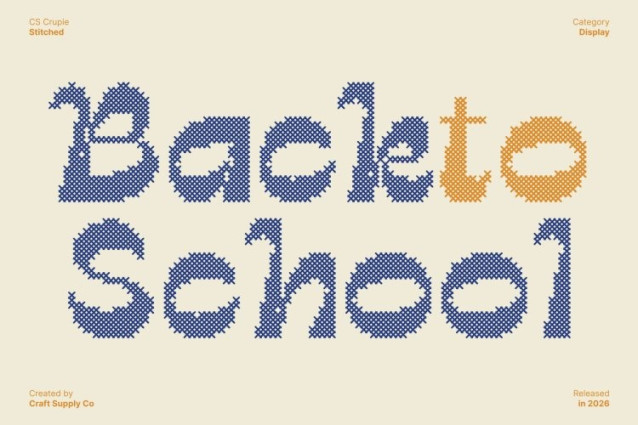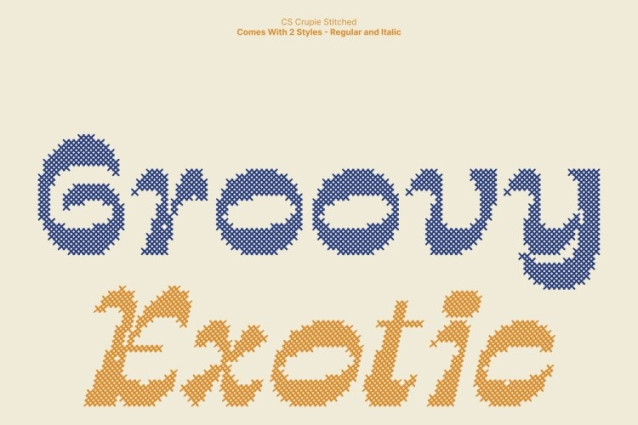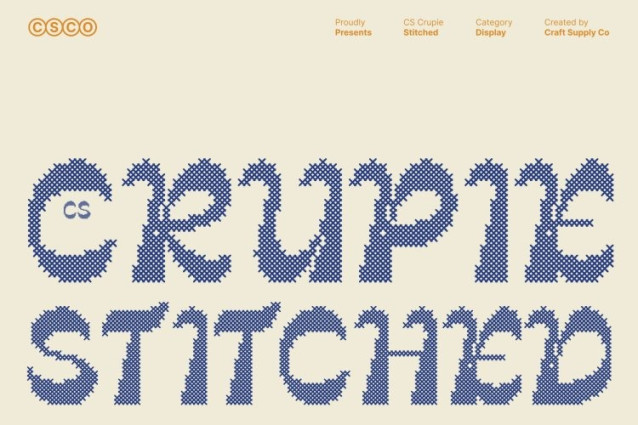
CS Crupie Stitched Font
CS Crupie Stitched Font is a reverse contrast display font that commands attention through its distinctive structure, where thick horizontal strokes meet thin vertical lines. This unconventional weight distribution creates a dramatic and highly recognizable visual rhythm. Enhanced with a stitched texture inspired by thread sewn or embroidered on fabric, the font introduces a handcrafted dimension that adds depth and character to its bold retro personality.
Retro Spirit with Vintage Stitch Aesthetic
Inspired by nostalgic typography from the 60s to 80s, this font captures the warmth and charm of vintage advertisements and classic poster lettering. The stitched effect overlays the letterforms with subtle cross-thread detailing, creating an embossed fabric-like texture that evokes craftsmanship and tradition.
Funky Shapes with Playful Personality
The font’s eccentric curves and expressive proportions bring a lively and unconventional energy to every letter. The stitched detailing enhances these playful shapes, making them feel both artistic and handcrafted. This unique blend of bold structure and decorative texture results in a typeface that feels expressive, quirky, and visually engaging.
Perfect for Retro Branding and Creative Displays
This is ideal for projects that aim to stand out with personality and vintage flair. It works beautifully in retro branding, posters, packaging, music artwork, and editorial headlines. By combining reverse contrast design with stitched craftsmanship, this font delivers a bold, nostalgic.